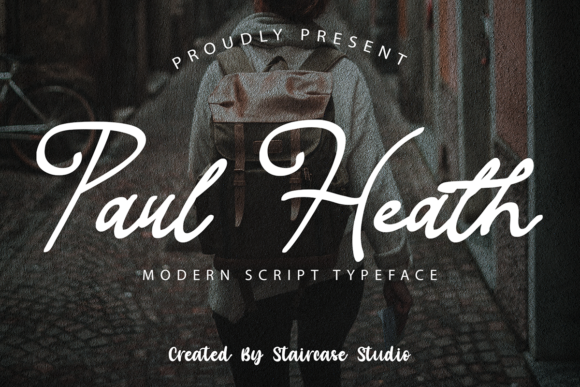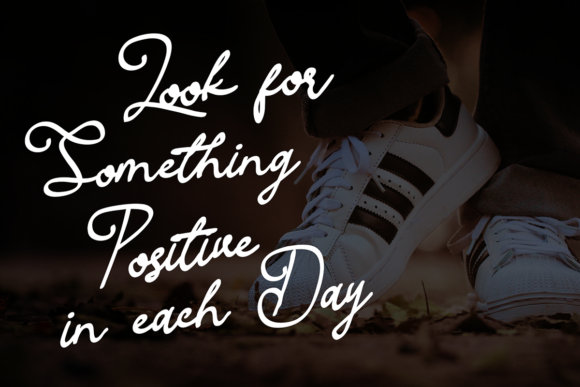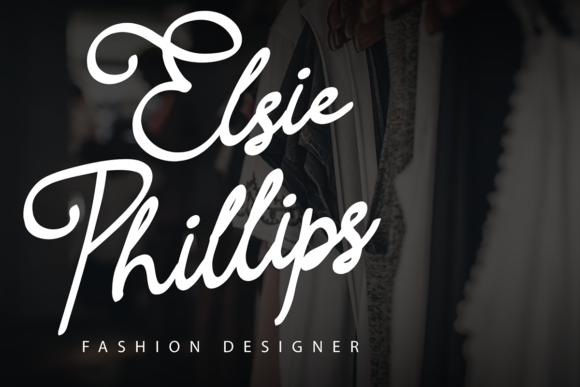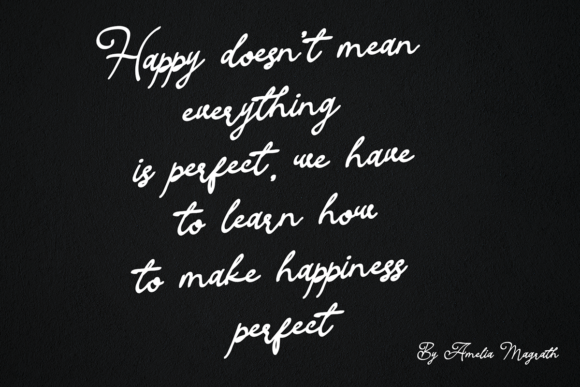
About Paul Heath Font
Paul Heath is a modern script font. A collection of letters and numbers suitable for your projects, and also great for logotype, branding design, logo design, digital lettering arts, t-shirt/apparel, poster, magazine, signs, advertising design, and more.